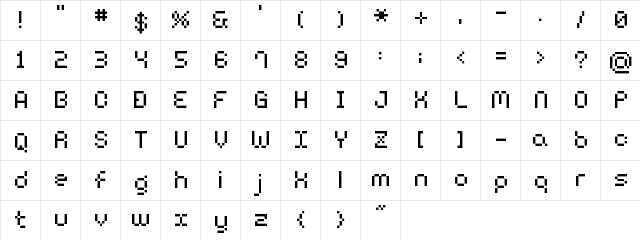
BM harry A10
Design Context for BM harry Typeface
BM harry is a composed and adaptable typeface that performs quietly and consistently across a wide range of design contexts.